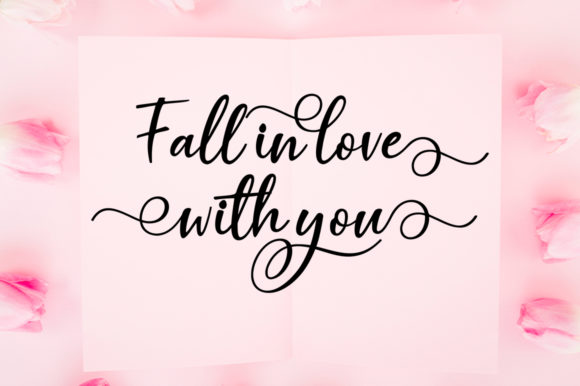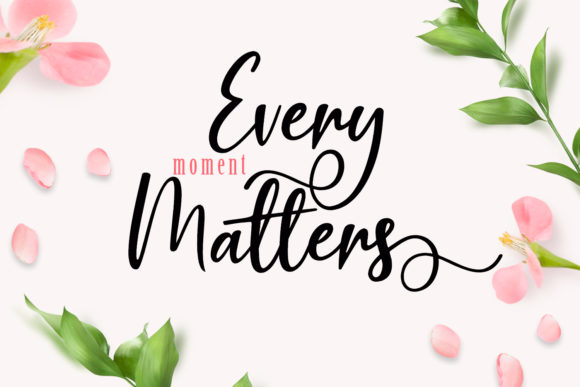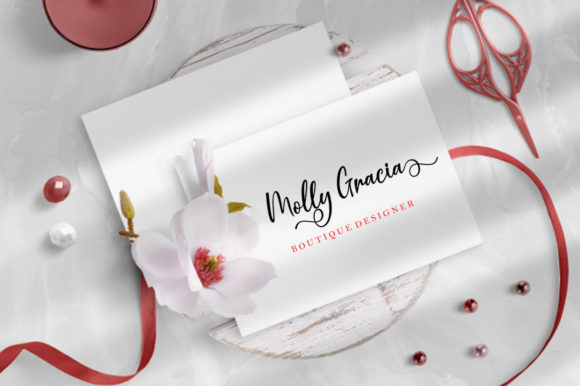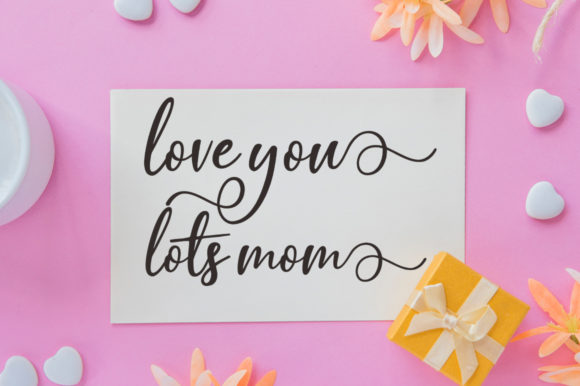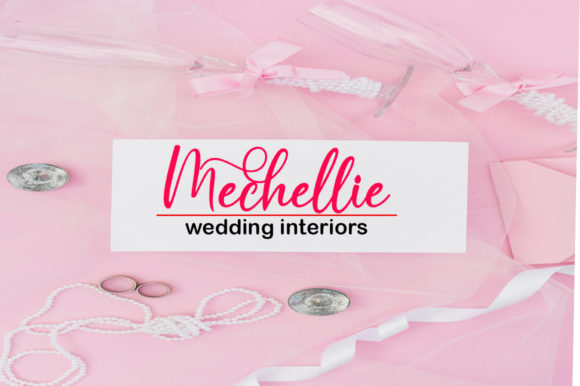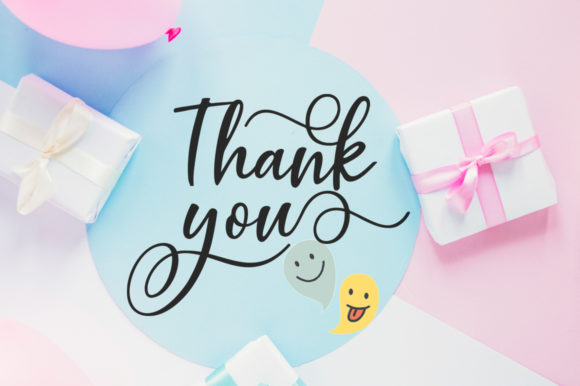
Unleash the Sweetness of Typography
Have you ever found yourself staring at a beautiful font and thought, ‘Wow, I wish I could use this in my next design project?’ That’s exactly what happened to me when I discovered the stunning Candyland Font. Its bold swashes and elegant script style had me hooked from the very first glance.
| 👤 Author | Donyadesign |
The Candyland Font is a versatile script font designed to add a touch of modern elegance to any design. Whether you’re working on a wedding invitation, a logo, or a promotional poster, this font is sure to make your project stand out. Its unique style and versatility make it a valuable addition to any designer’s toolkit.
Candyland Font Key Features
- Unique Characteristics: The Candyland font features a distinctive, whimsical design with bold lines, rounded edges, and colorful accents, making it perfect for children’s books, party invitations, and other playful designs.
Candyland Font Review
The Candyland Font is a playful and whimsical typeface designed to evoke the classic board game. It’s perfect for anyone looking to add a touch of nostalgia and fun to their designs. ✨ Here are some of its strengths:
- Nostalgic charm: The font is inspired by the classic board game, making it a great choice for designers who want to evoke a sense of childhood wonder.
- Unique character: The Candyland Font has a distinct personality that sets it apart from more generic sans-serif fonts.
- Fun and playful: The font is perfect for designs that need a lighthearted and carefree feel.
However, the Candyland Font also has some limitations:
- Limited legibility: The font can be difficult to read at smaller sizes, making it less suitable for body text.
- Not suitable for formal designs: The font’s playful nature makes it less suitable for formal or professional designs.
Overall, the Candyland Font is a fun and unique typeface that’s perfect for designers looking to add a touch of whimsy to their designs. While it may not be the best choice for every project, it’s definitely worth considering for designs that need a playful and nostalgic feel. ⚠️ Just be sure to use it in moderation and pair it with other fonts that can help to balance out its more playful aspects.
The Candyland font is perfect for creating whimsical and playful designs, such as:
- Children’s birthday invitations
- Party decorations
- Food labels and packaging
- Wedding stationery
Remember to adjust the font size and style to ensure the text is legible and visually appealing.